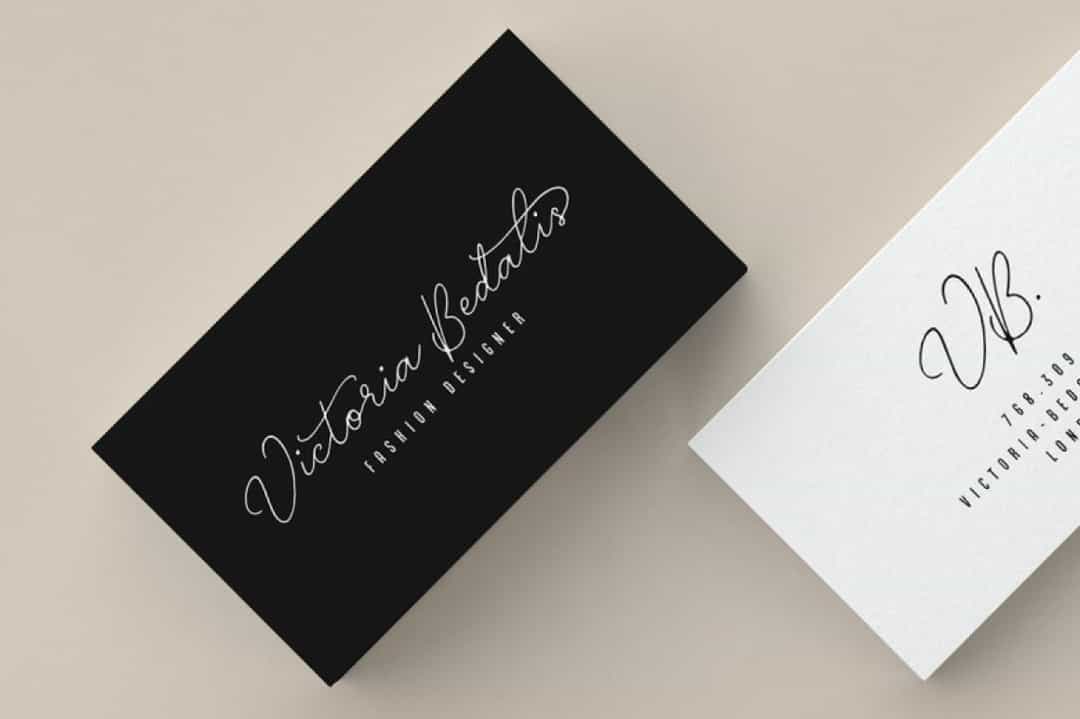
Airwaves is an eye-catching font duo that combines condensed sans serif and signature-like script in one magnificent font family. It includes six styles – making this font duo an incredible value proposition! Even its compact versions make powerful statements.